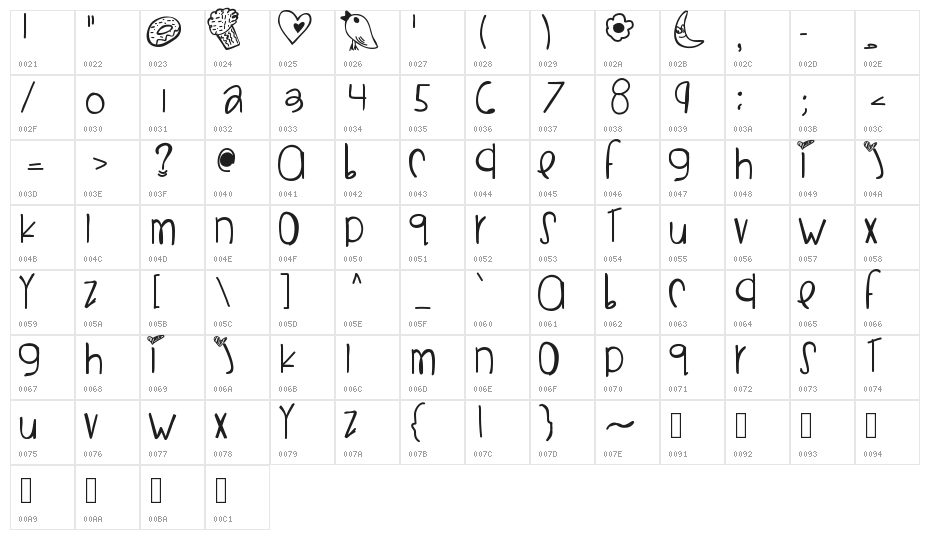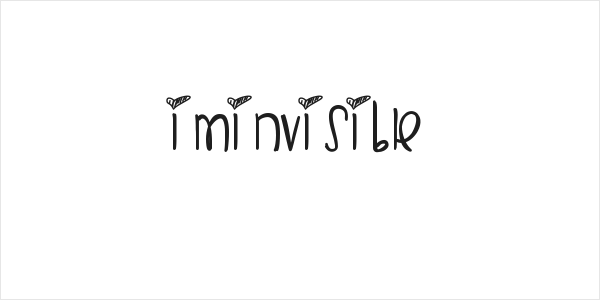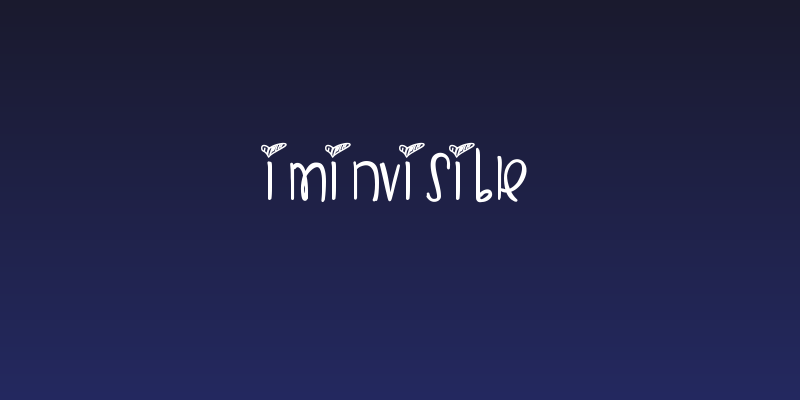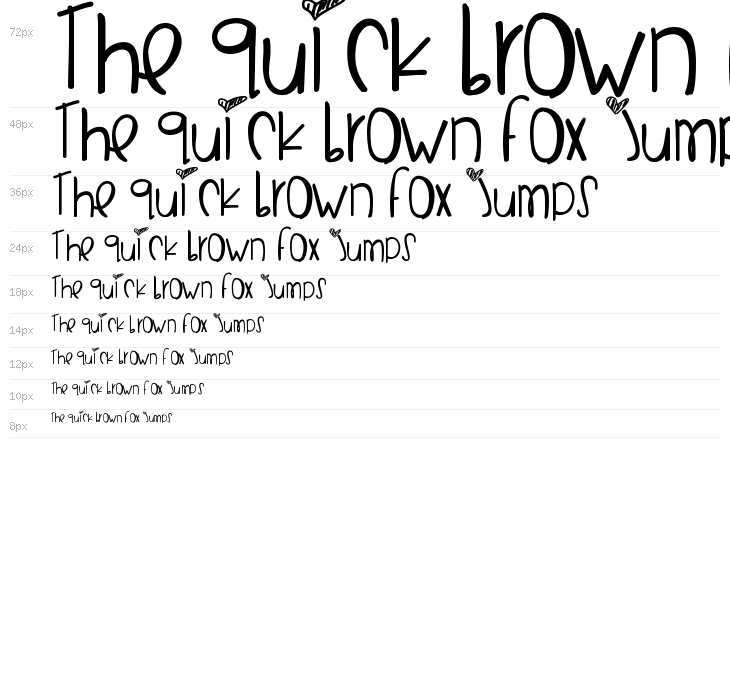
ImInvisible Font
ImInvisible Description
This playful and whimsical font features a handwritten style with a casual and friendly appearance. The characters are slightly uneven, adding to the charm and uniqueness of the design. The letters have a consistent stroke width, giving them a clean and modern look while maintaining a fun and approachable feel. The inclusion of decorative elements like hearts and flowers further enhances its playful nature, making it suitable for creative and informal projects. The font's overall style is reminiscent of doodles or sketches, perfect for adding a personal touch to any design.
| Proposed Projects | Ideal for children's books, greeting cards, playful branding, and DIY projects. |